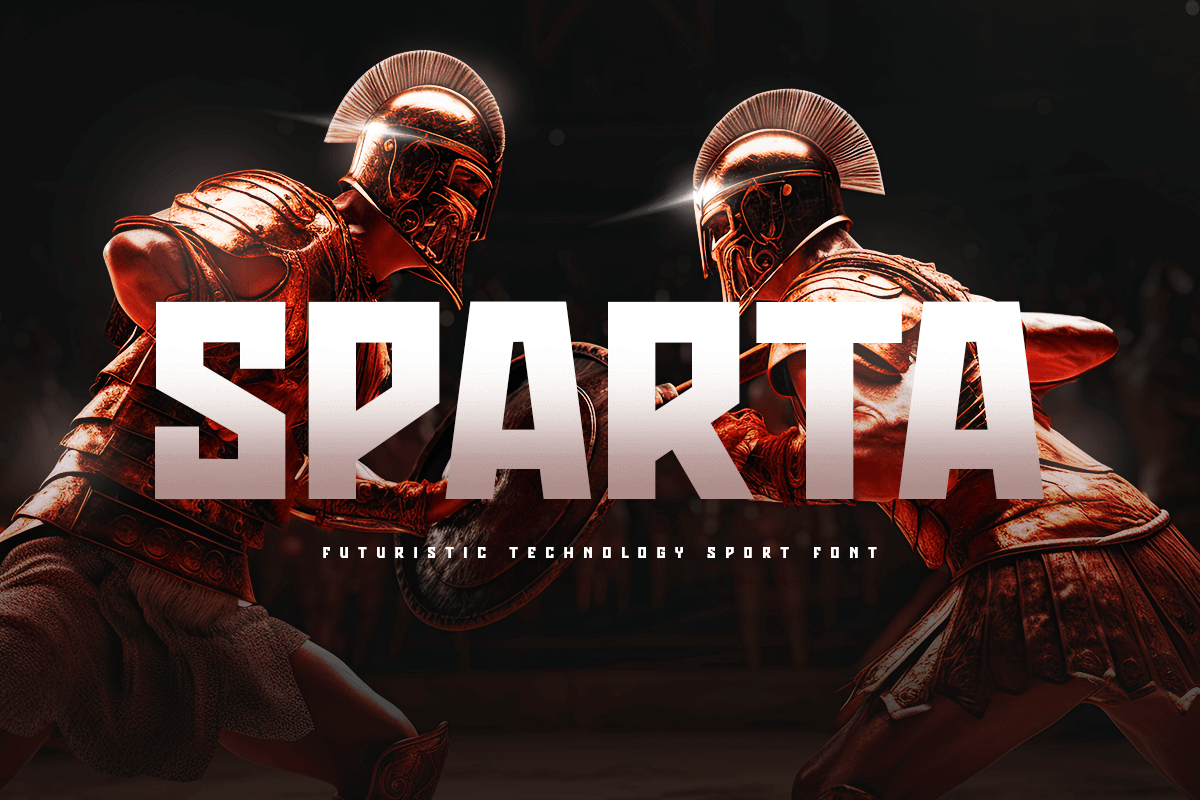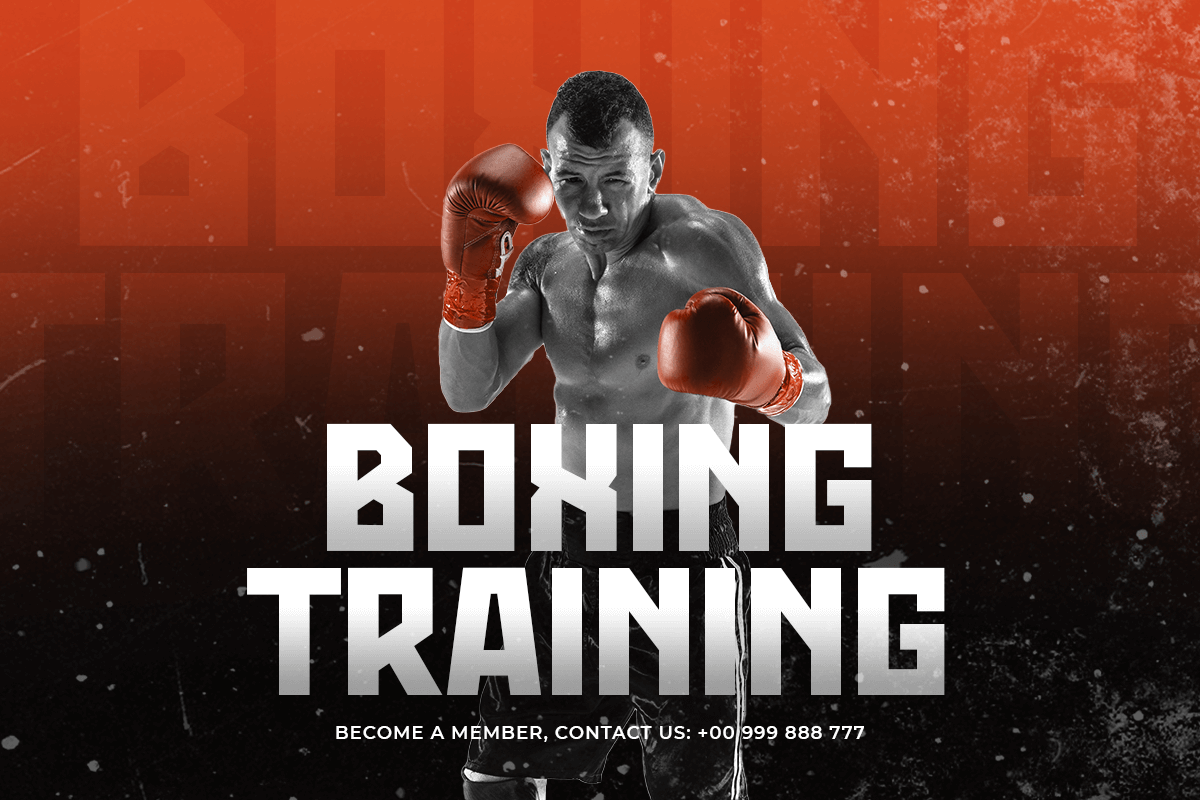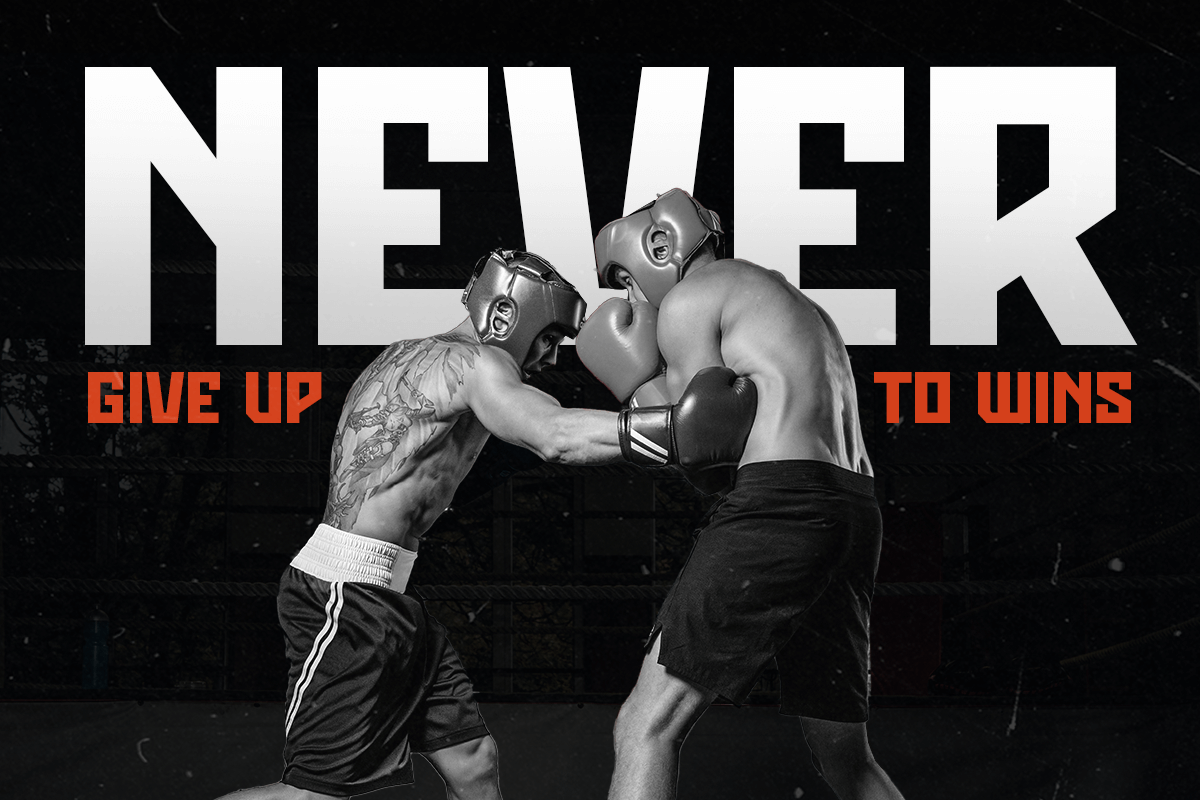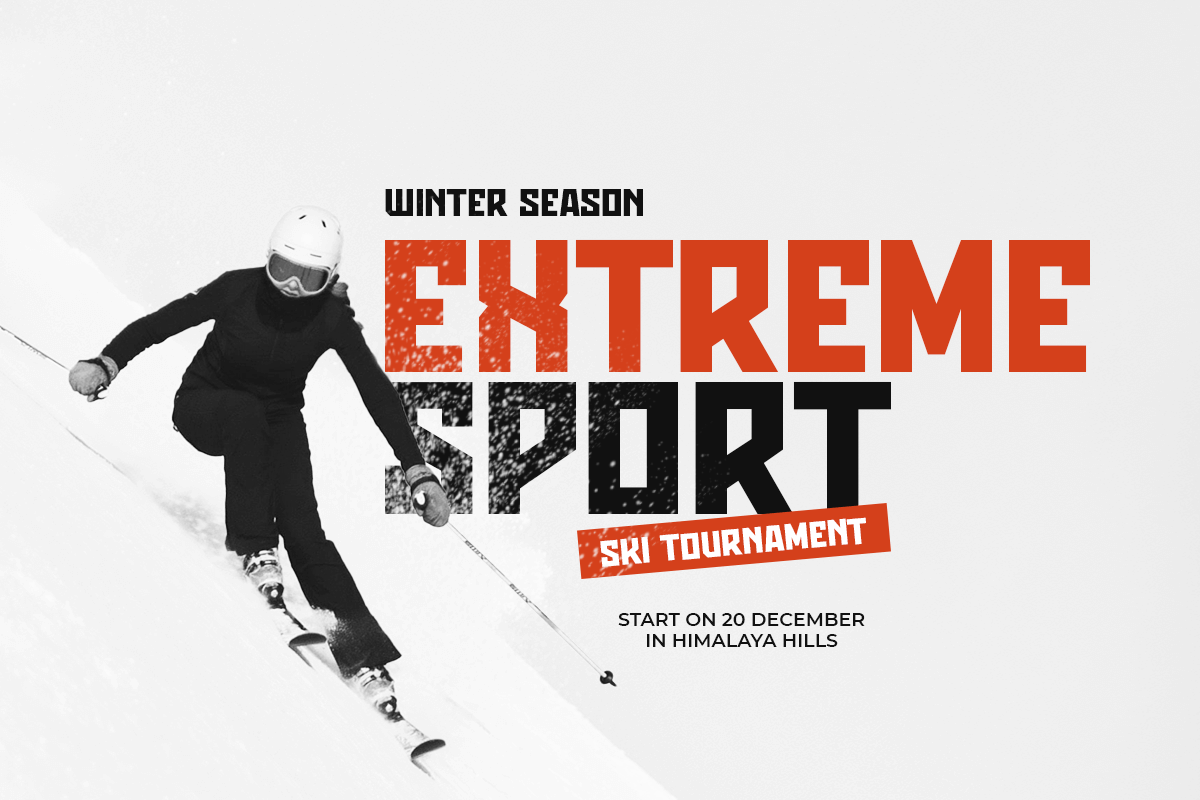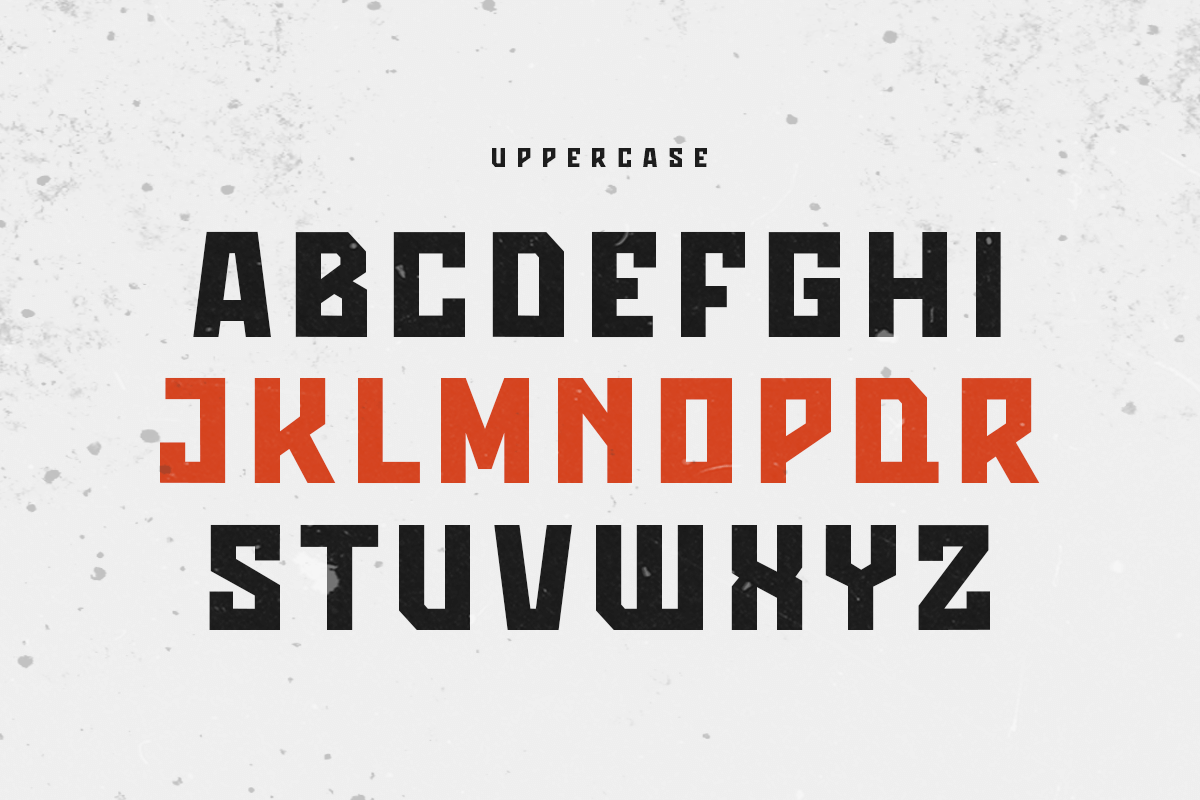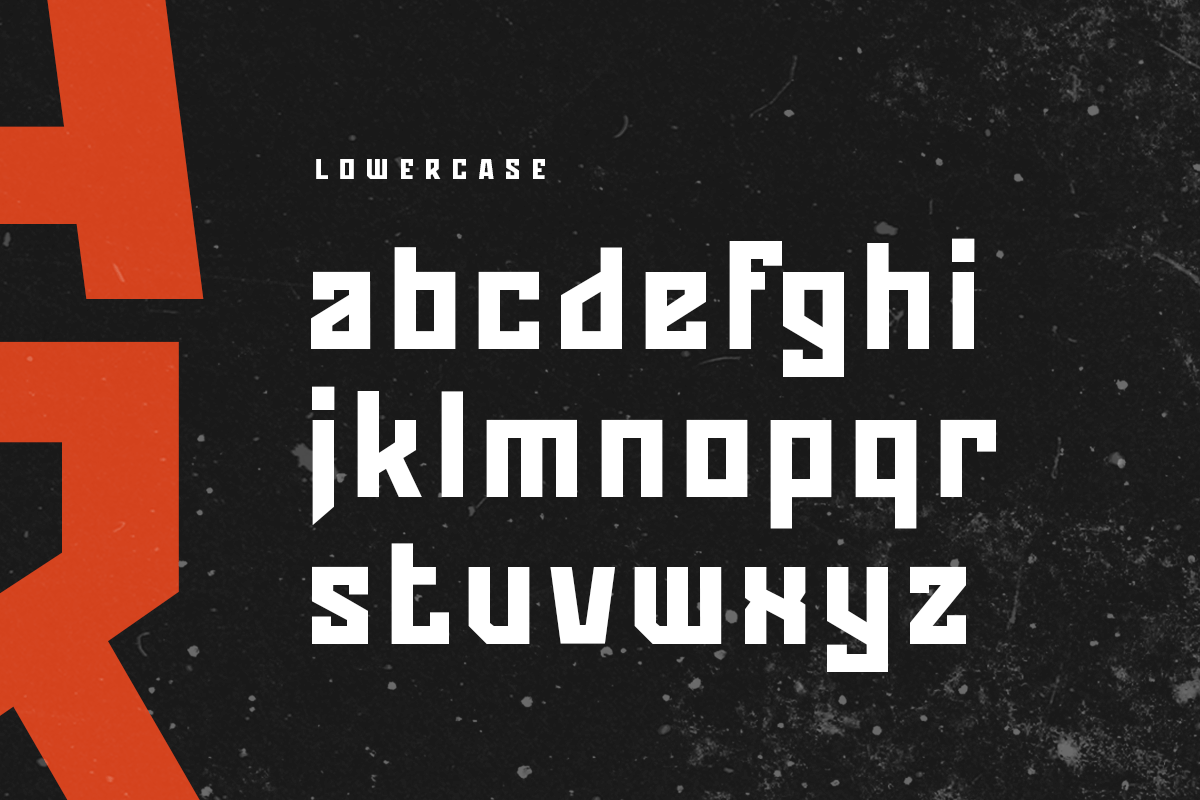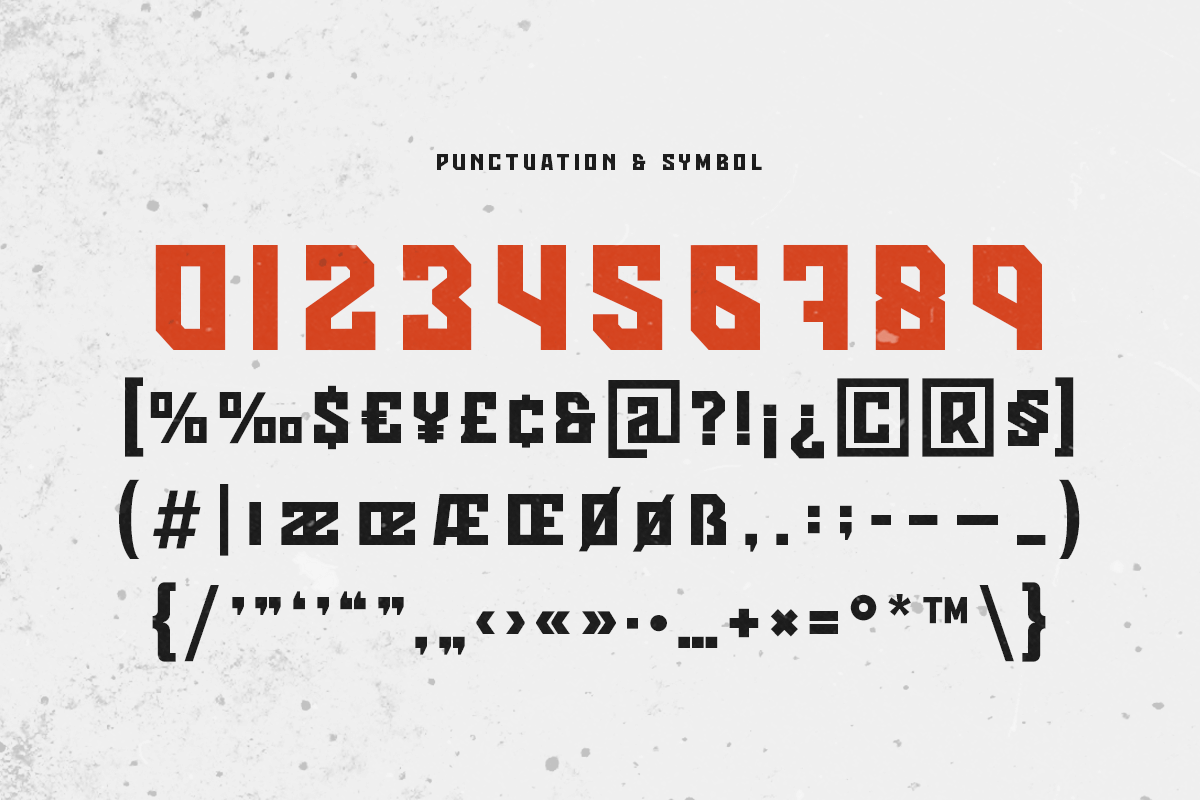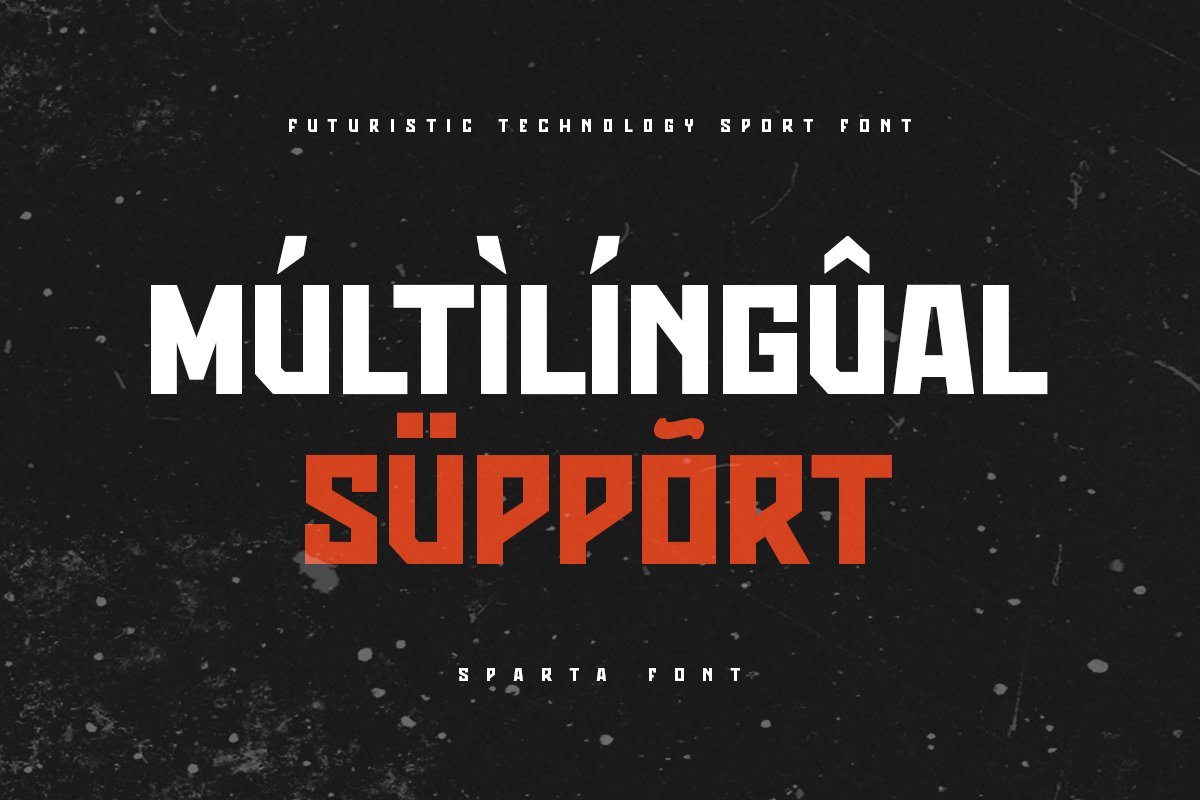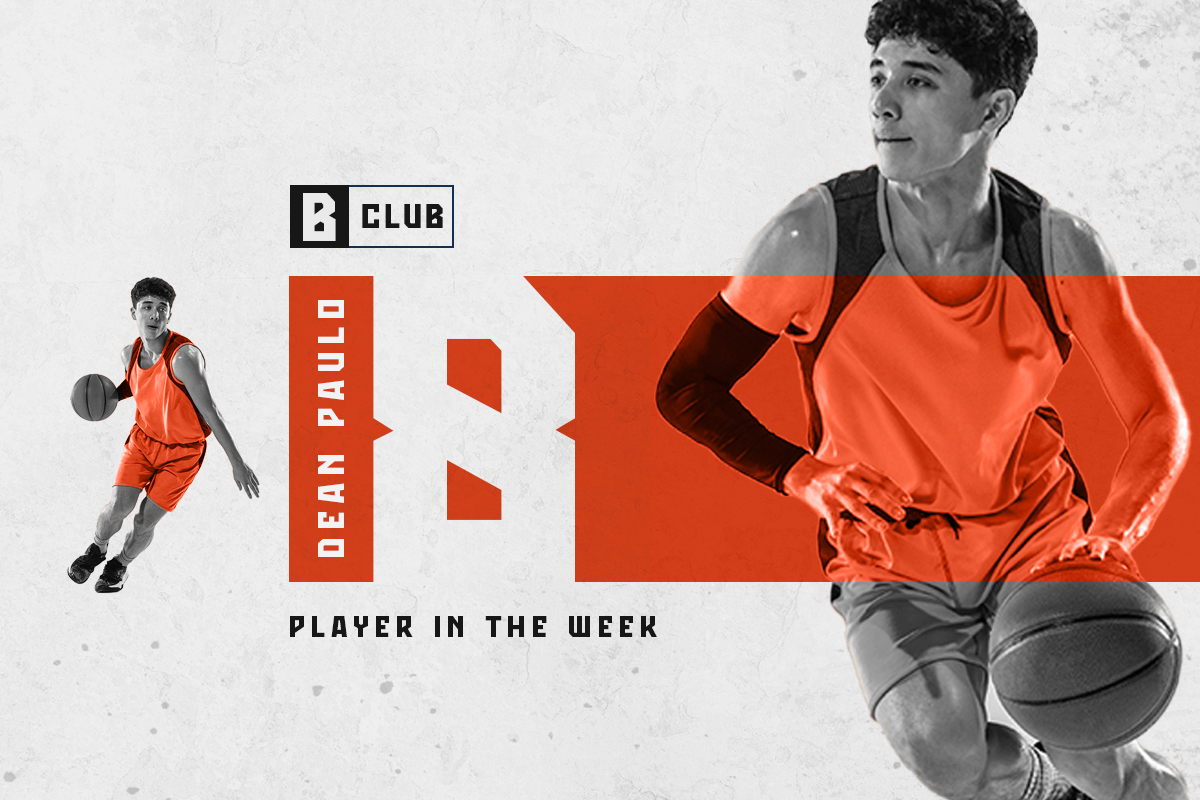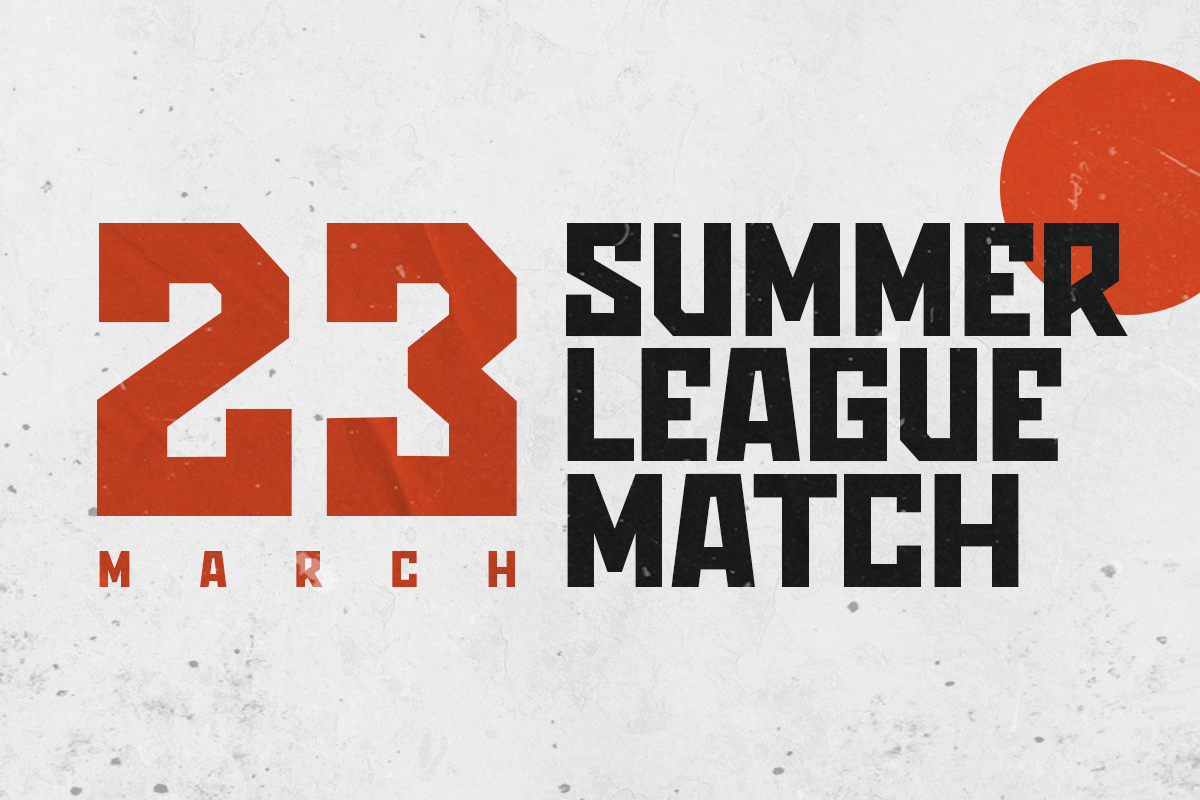
SPARTA
-Technology Sport Font
Sparta Futuristic
SPARTA is a Futuristic Technology Sport Font that created special for Logo, Film Title, Action Poster, Match Design and more stand out typography for sport, futuristic and action. It’s so perfect to add your style and headline overview for sport, technology, actions, and fighting theme. And specially for this font, we crafted for bold action style and modern feels so enjoy to create any project that will show your main idea out.